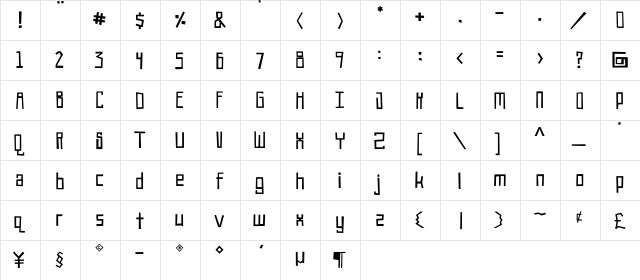
Robot!Head Robot!Head
Design Context for Robot!Head Typeface
Robot!Head takes a measured approach to typography — its balanced proportions and neutral character make it a reliable workhorse for both digital and print work.